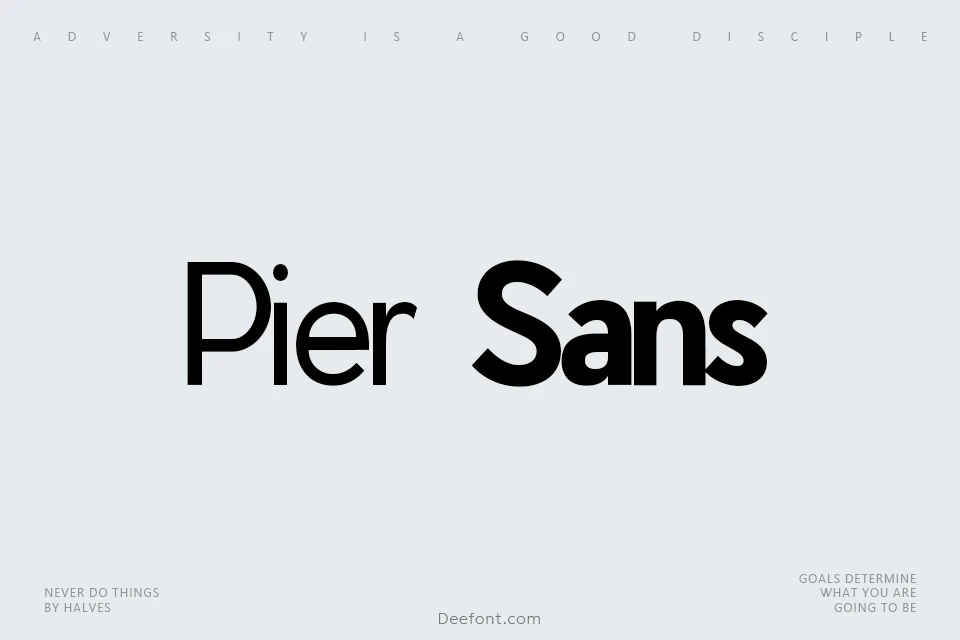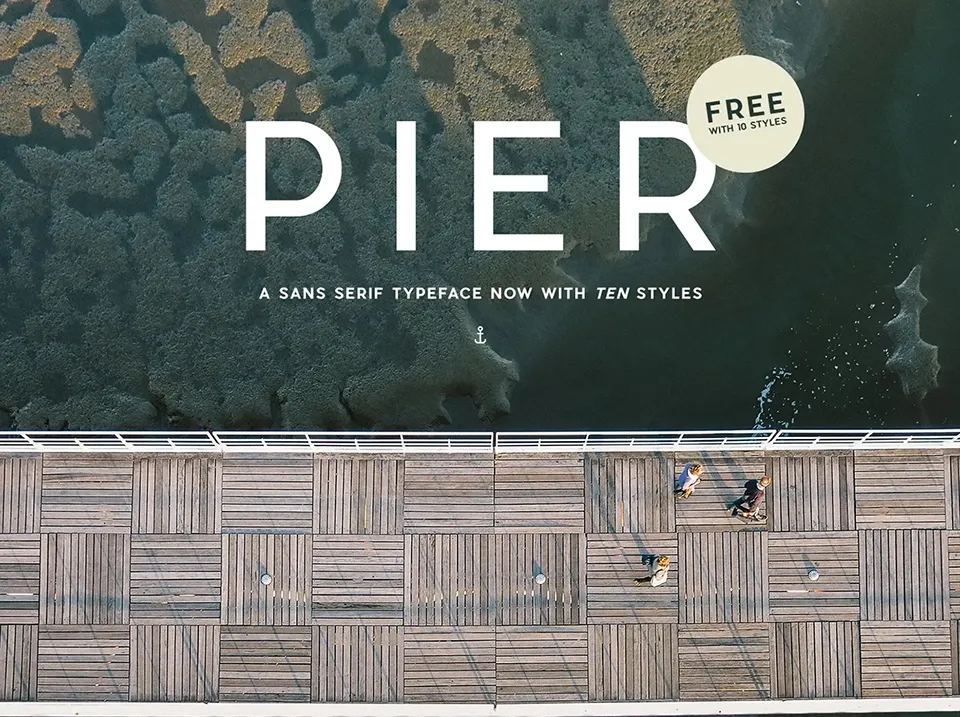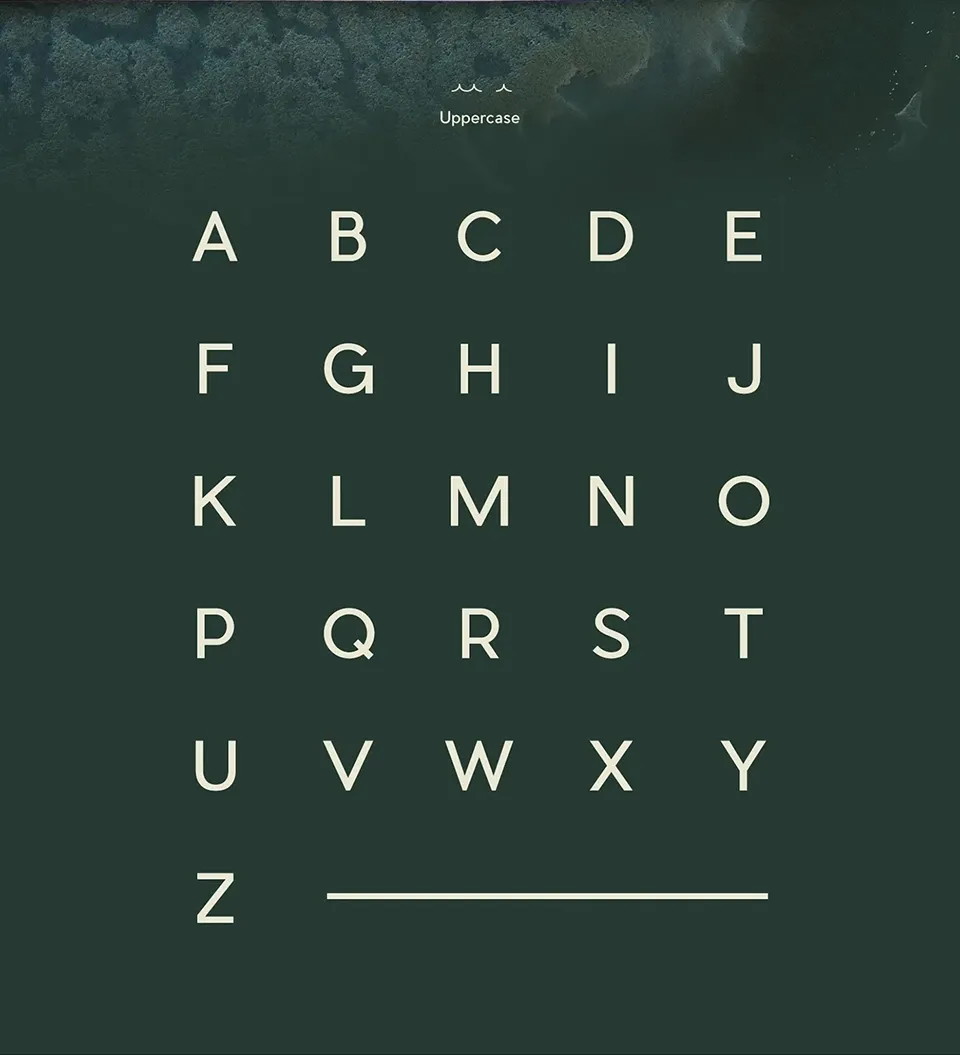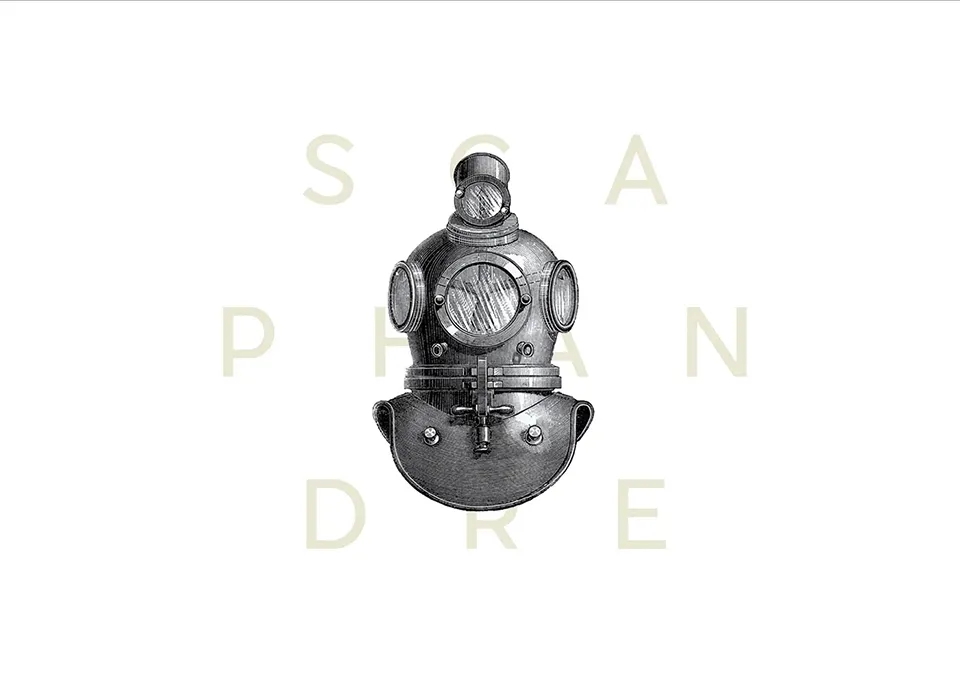
Pier Sans Font Family
Pier Sans Font Family is a modern and structured sans serif typeface designed to offer a slightly off geometric look. Its clean lines and versatile style make it suitable for both large and small text, fitting seamlessly into everyday designs and text needs. Whether you’re working on branding, editorial, or digital projects, Pier Sans Font Family delivers a professional and contemporary aesthetic that adapts to a wide range of creative applications.